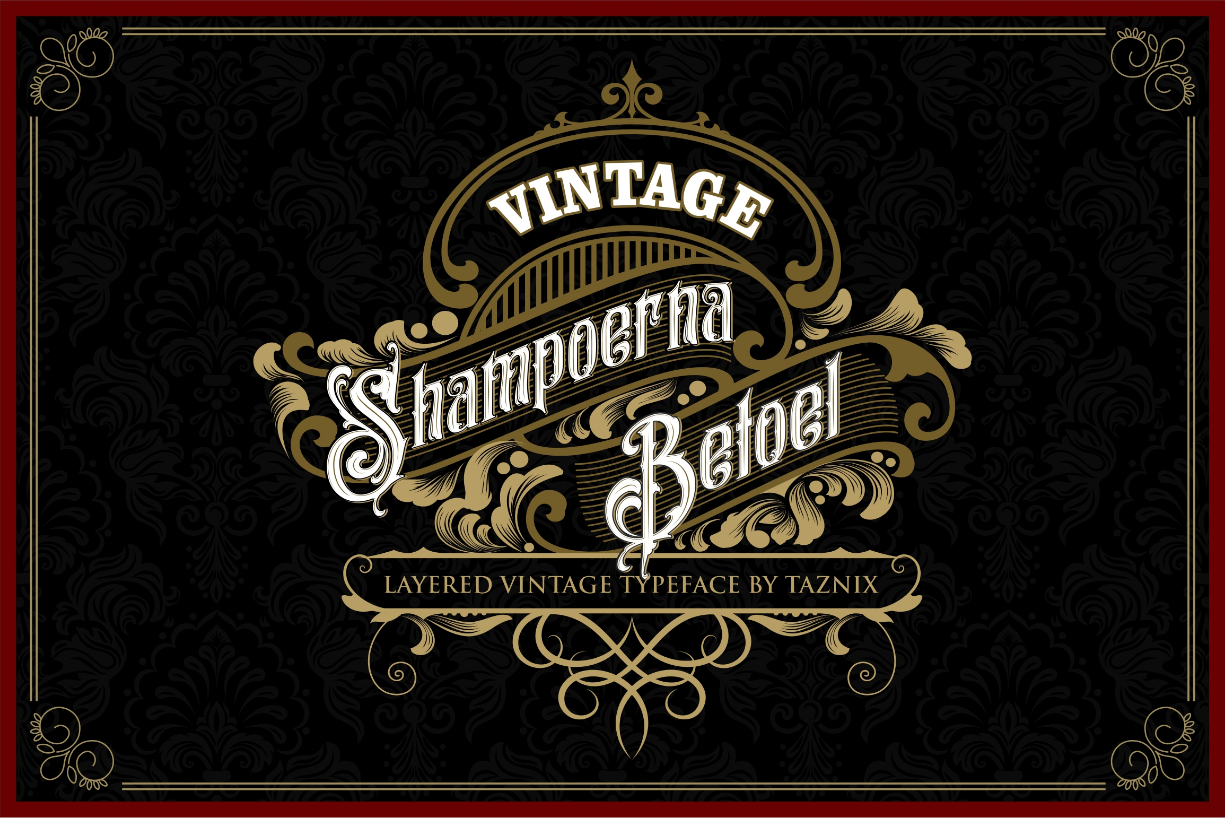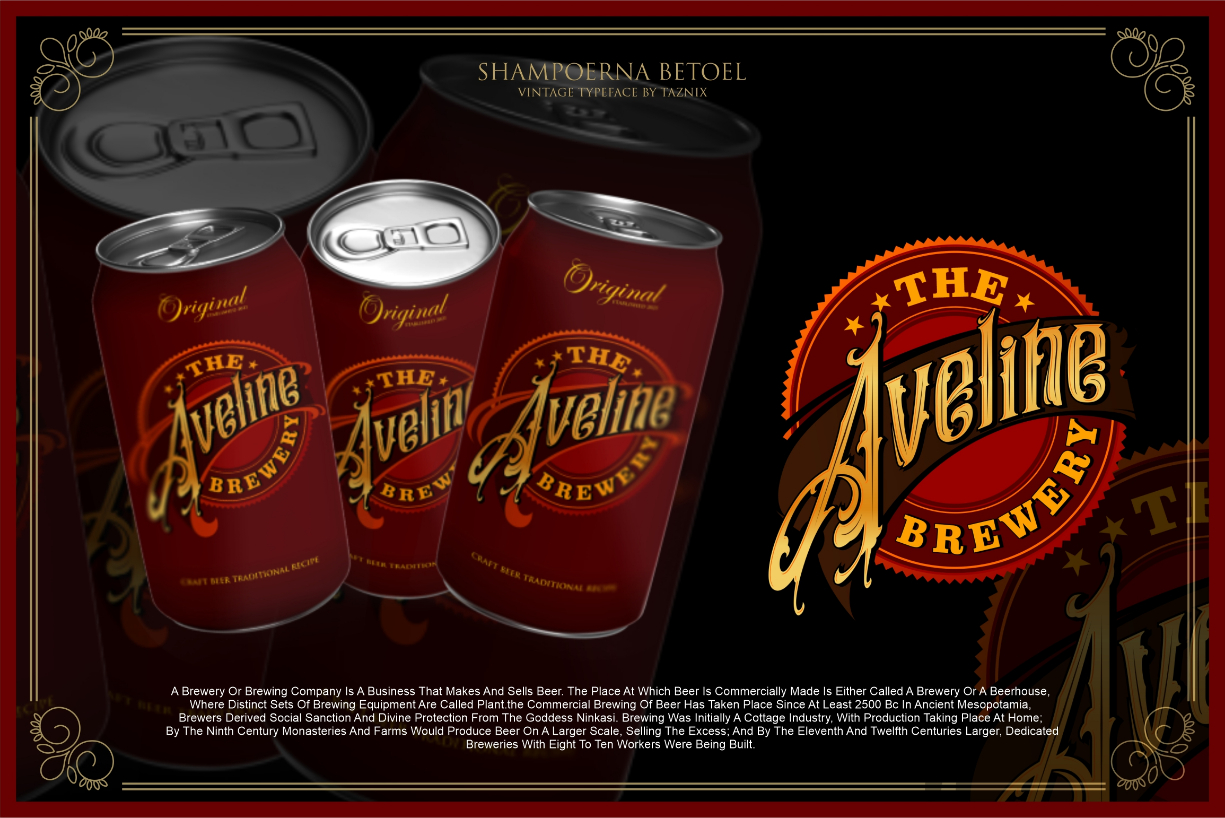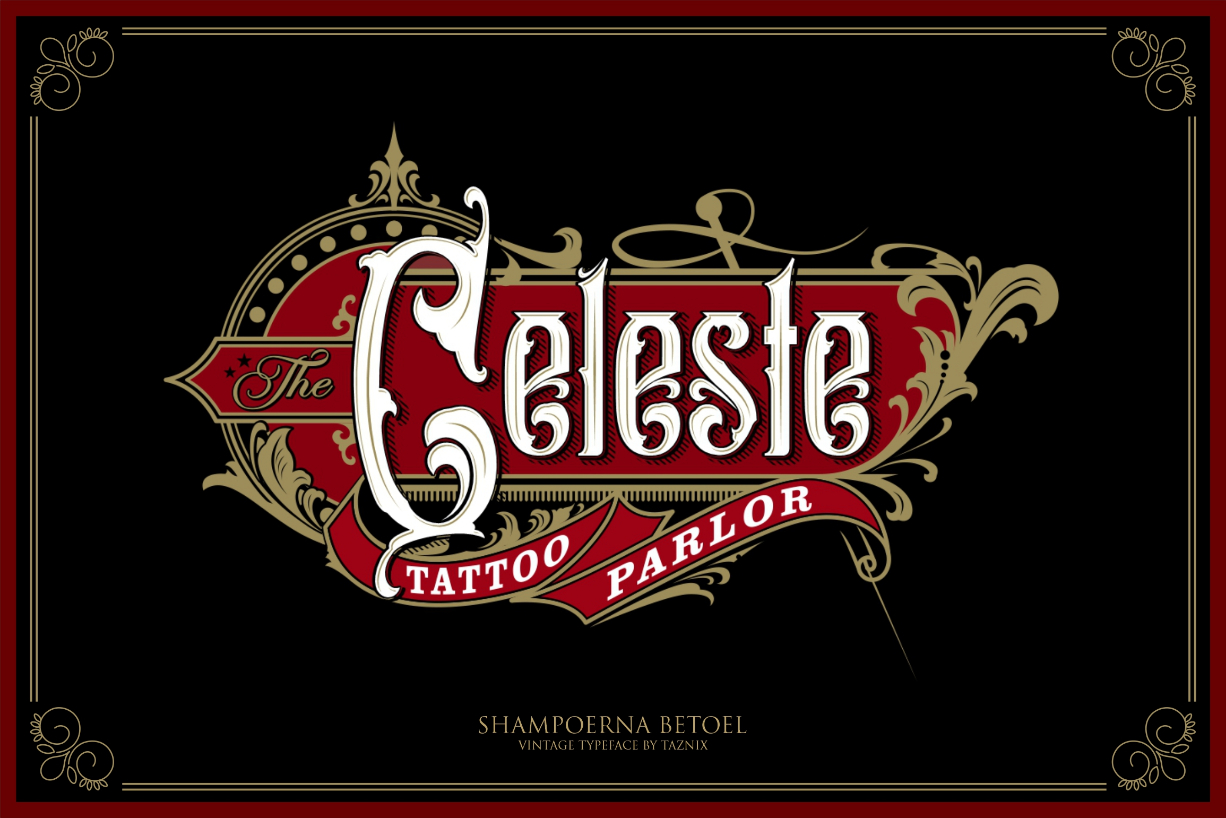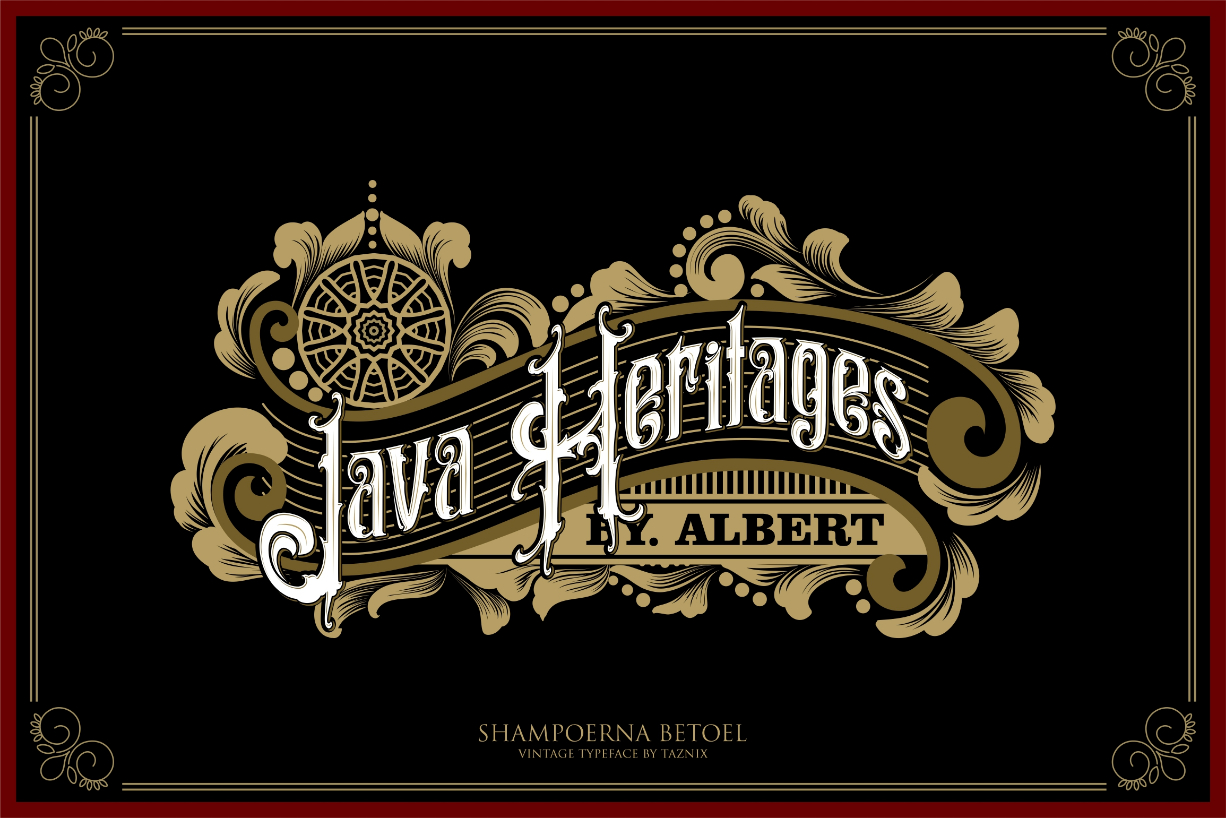
About Shampoerna Betoel Font
Shampoerna Betoel is an elegant and classic blackletter font. Fall in love with its incredibly versatile style and use it to create spectacular designs!